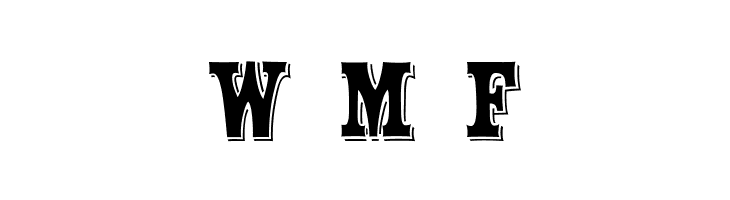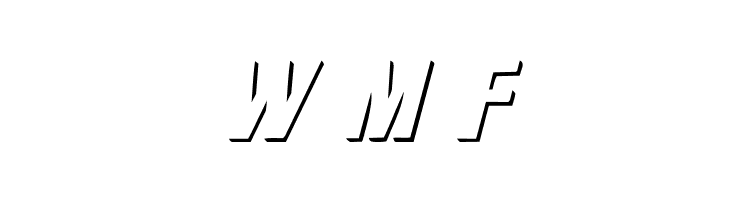
A bold, shadowed Gothic-style font with a three-dimensional effect.
A bold, three-dimensional font with strong shadow effects and geometric structure.
Bold, three-dimensional font with a modern and playful style.
A bold, three-dimensional font with a grid shadow effect, offering a modern and playful look.
A bold, decorative font with a vintage Western style and three-dimensional shadow effect.
A bold, three-dimensional font with playful, dynamic elements and shadow effects.
A bold, geometric font with a three-dimensional effect and modern style.
A bold, three-dimensional font with layered, geometric designs.
A bold, decorative font with a three-dimensional effect and strong visual impact.
A bold, shadowed font with a strong, three-dimensional appearance.
A bold, decorative font with a strong contour outline and three-dimensional appearance.
A bold, shadowed serif font with a three-dimensional effect.
A bold, shadowed font with a dynamic, three-dimensional appearance.
A bold, chiseled font with a three-dimensional effect, perfect for impactful designs.
A bold, italic font with a three-dimensional, shadowed effect.
A bold, shadowed font with a three-dimensional, decorative style.
A bold, three-dimensional font with a vintage, shadowed style.
Bold slab serif font with a three-dimensional outline effect.
A bold, three-dimensional box-like font with rounded edges and a geometric style.
A bold, three-dimensional font with a geometric, architectural style.
A bold, shadowed decorative font with a three-dimensional effect.
A bold, decorative font with a grid-like, three-dimensional design.
A bold, three-dimensional font with a futuristic, digital aesthetic.
A bold, geometric font with a three-dimensional, optical illusion style.
A bold, three-dimensional font with a strong shadow effect and angular design.
A bold, three-dimensional geometric font with an architectural style.
A bold, textured font with a distressed, three-dimensional style.
A bold, angular outlined font with a geometric, three-dimensional style.